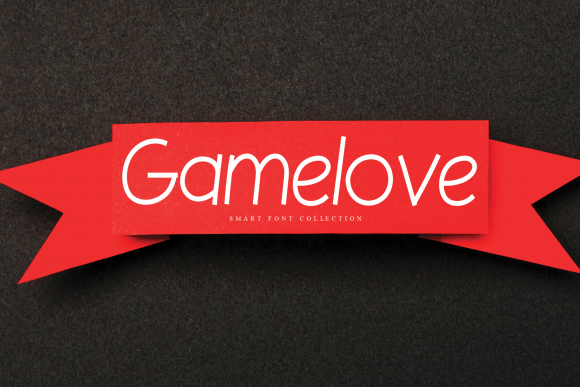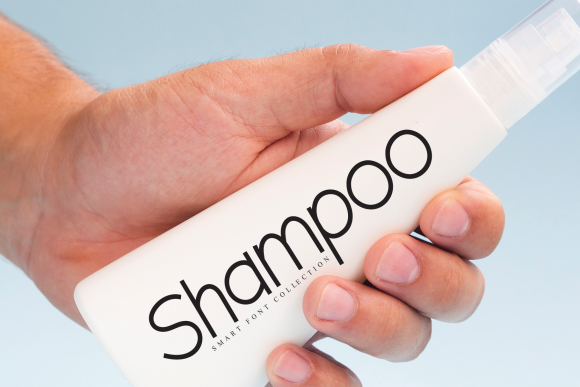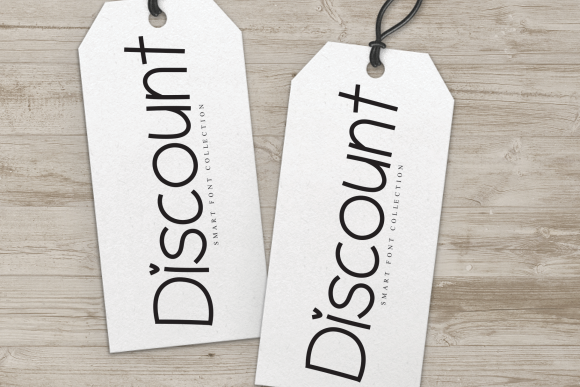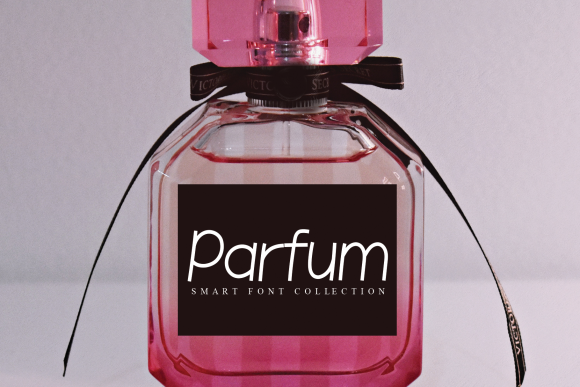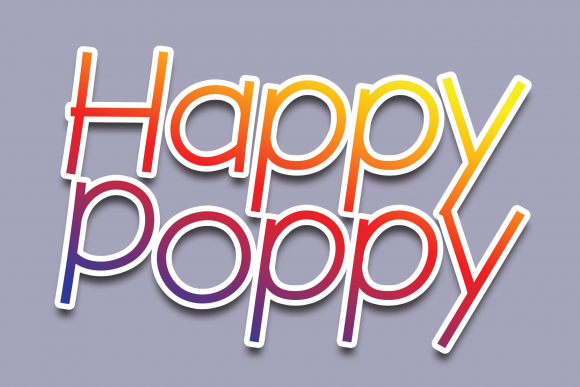
Introducing Happy Poppy Font: The Perfect Blend of Cool and Friendly
Are you tired of using the same old fonts in your designs? Look no further than Happy Poppy Font, a cool and friendly display font that’s sure to bring a smile to your face. With its perfect blend of trendiness and readability, Happy Poppy is the ideal choice for designers and crafters looking to add a touch of personality to their work.
The Characteristics of Happy Poppy Font
So, what makes Happy Poppy Font so special? For starters, it’s a display font that’s designed to make a statement. Its bold and playful design makes it perfect for headlines, titles, and other applications where you want to grab attention. But what really sets Happy Poppy apart is its friendly and approachable vibe. This font is down-to-earth and jolly, making it perfect for designs that need a bit of personality and whimsy.
Why Choose Happy Poppy Font?
There are many reasons why Happy Poppy Font is a great choice for designers and crafters. Here are just a few:
- Readable: Despite its bold and playful design, Happy Poppy Font is highly readable, even at smaller sizes. This makes it perfect for designs where you need to convey a message quickly and clearly.
- Trendy: Happy Poppy Font has a distinctly modern feel that’s perfect for designers who want to stay on top of the latest trends. Its unique design ensures that your work will stand out from the crowd.
- Versatile: Happy Poppy Font is a versatile font that can be used in a wide range of applications, from digital designs to print materials. Its flexibility makes it a great addition to any designer’s toolkit.
How to Use Happy Poppy Font in Your Designs
So, how can you use Happy Poppy Font in your designs? Here are a few ideas to get you started:
- Headlines and Titles: Happy Poppy Font is perfect for headlines and titles, where its bold and playful design can really make an impact.
- Social Media Graphics: Use Happy Poppy Font to add a touch of personality to your social media graphics, from Facebook posts to Instagram stories.
- Branding and Packaging: Happy Poppy Font is a great choice for branding and packaging designs, where its friendly and approachable vibe can help to build a connection with customers.
- Crafting and Scrapbooking: Happy Poppy Font is also perfect for crafters and scrapbookers who want to add a personal touch to their projects.
Tips for Getting the Most Out of Happy Poppy Font
Here are a few tips for getting the most out of Happy Poppy Font:
- Experiment with Different Sizes: Happy Poppy Font looks great at a wide range of sizes, from small and subtle to large and bold. Experiment with different sizes to find the one that works best for your design.
- Pair it with Other Fonts: Happy Poppy Font pairs well with a wide range of other fonts, from simple sans-serifs to more elaborate script fonts. Experiment with different pairings to find the one that works best for your design.
- Use it to Add Emphasis: Happy Poppy Font is perfect for adding emphasis to your designs, from highlighting key messages to drawing attention to specific elements.
In conclusion, Happy Poppy Font is a cool and friendly display font that’s perfect for designers and crafters who want to add a touch of personality to their work. Its unique blend of trendiness and readability makes it a great choice for a wide range of applications, from digital designs to print materials. Whether you’re looking to create bold and eye-catching headlines or add a personal touch to your crafting and scrapbooking projects, Happy Poppy Font is a great choice.